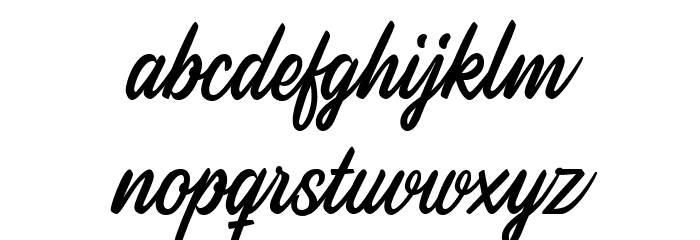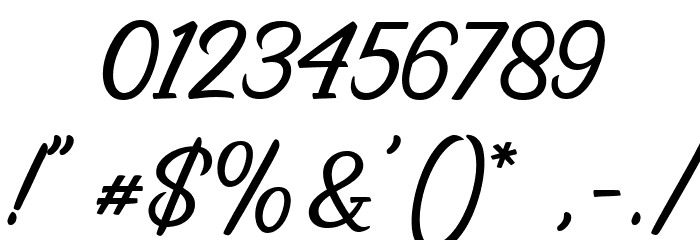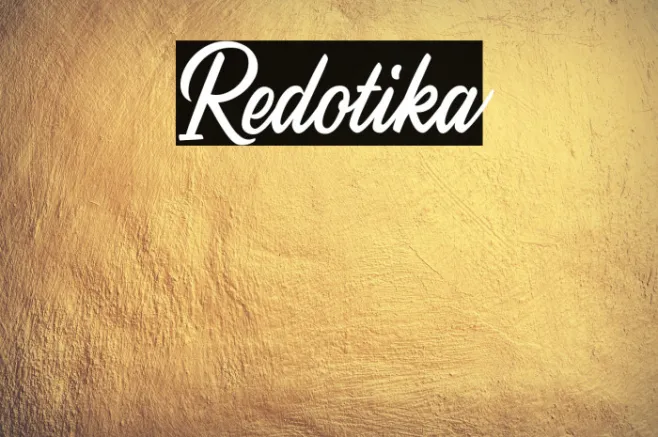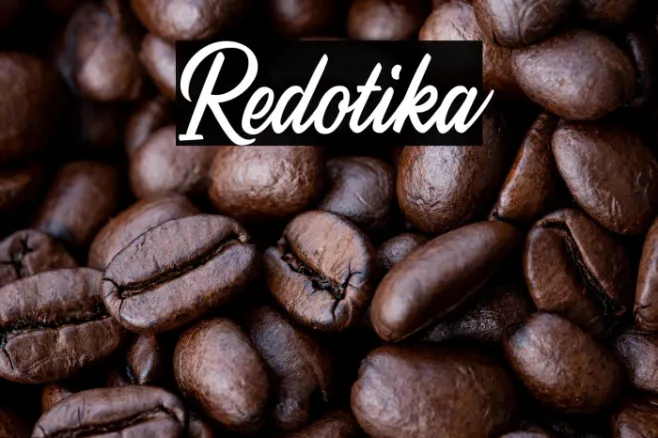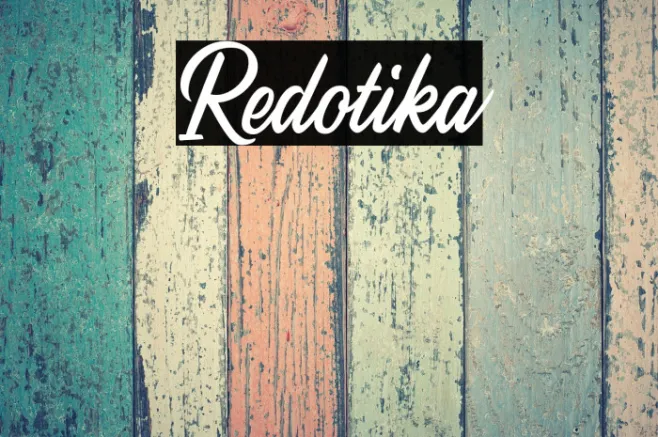
Redotika Font
This font exudes a classic, elegant script style with a flowing, cursive design that is both sophisticated and dynamic. The characters are interconnected, creating a seamless and fluid appearance. The uppercase letters are bold and prominent, while the lowercase letters maintain a graceful and consistent flow. The numerals and special characters are designed to match the overall aesthetic, ensuring a cohesive look across all elements. This font is ideal for projects that require a touch of elegance and sophistication, such as wedding invitations, formal event programs, or high-end branding materials.
An elegant, flowing script font with interconnected characters and a classic style.
- Font: Redotika
- Proposed Projects: Ideal for wedding invitations, formal event programs, and luxury branding materials.
- Category: Script
- Character Spacing: Tight
- Overall Style: Classic
- Use Case: Logos, Invitations, Branding